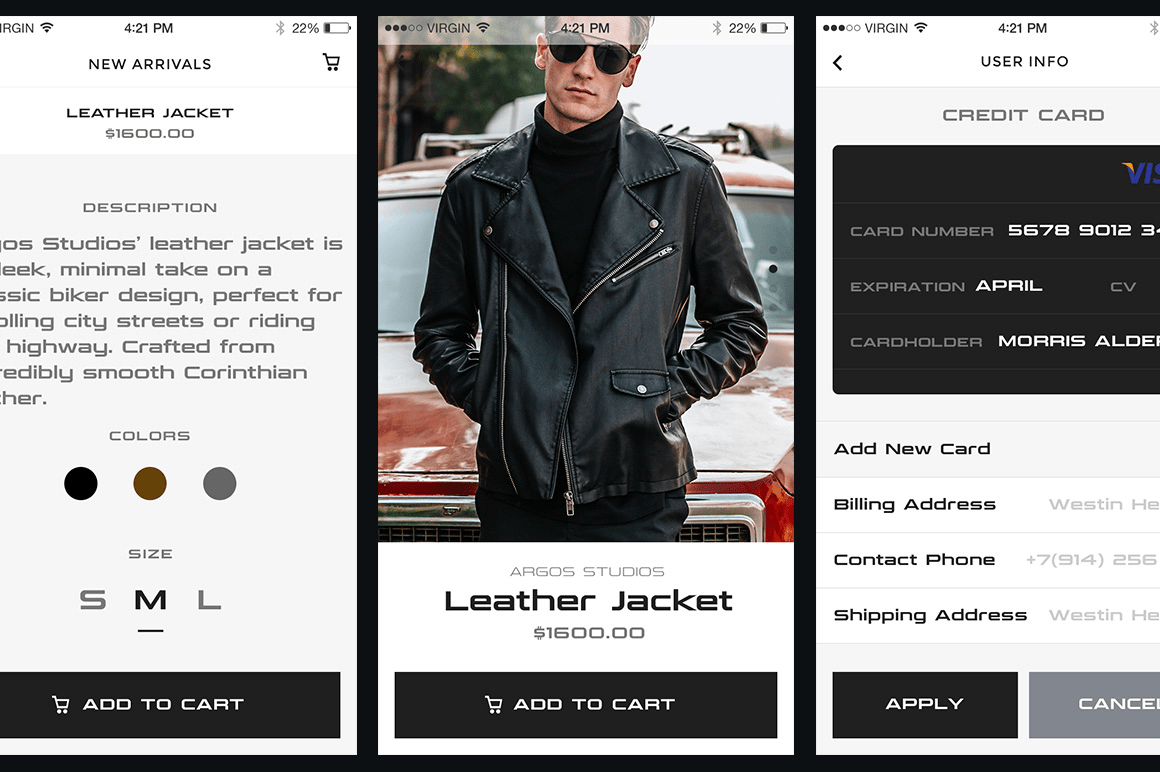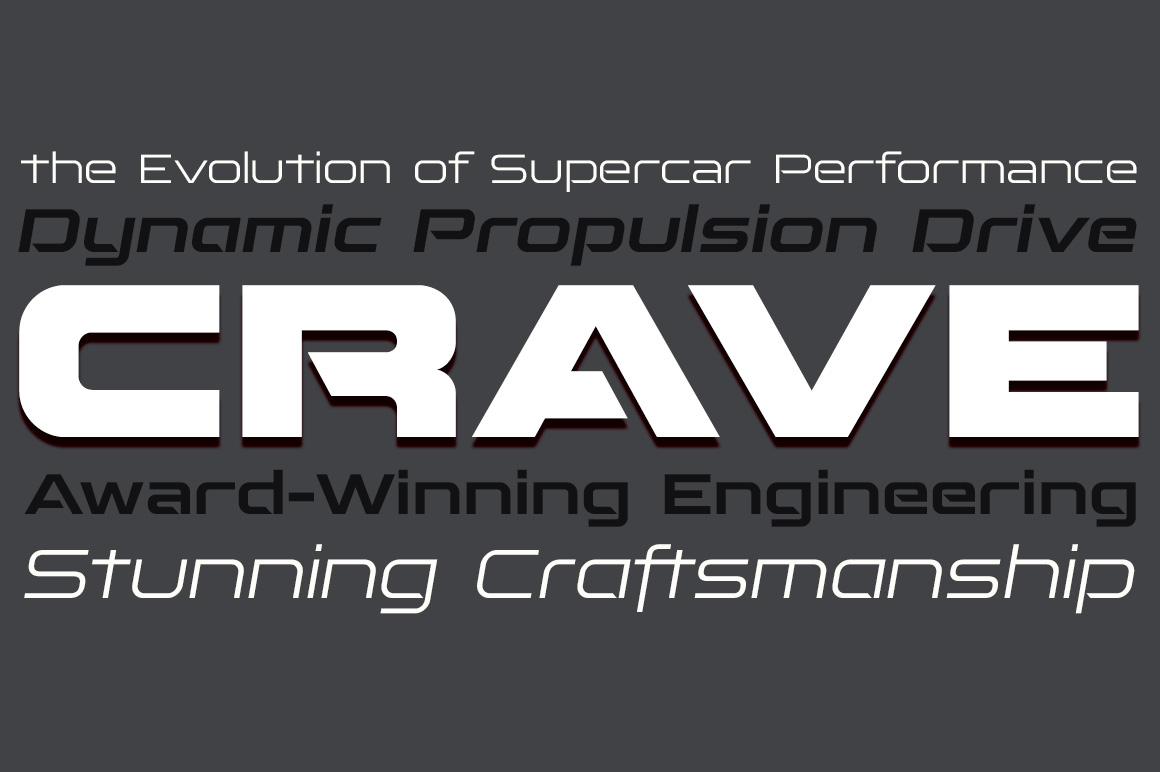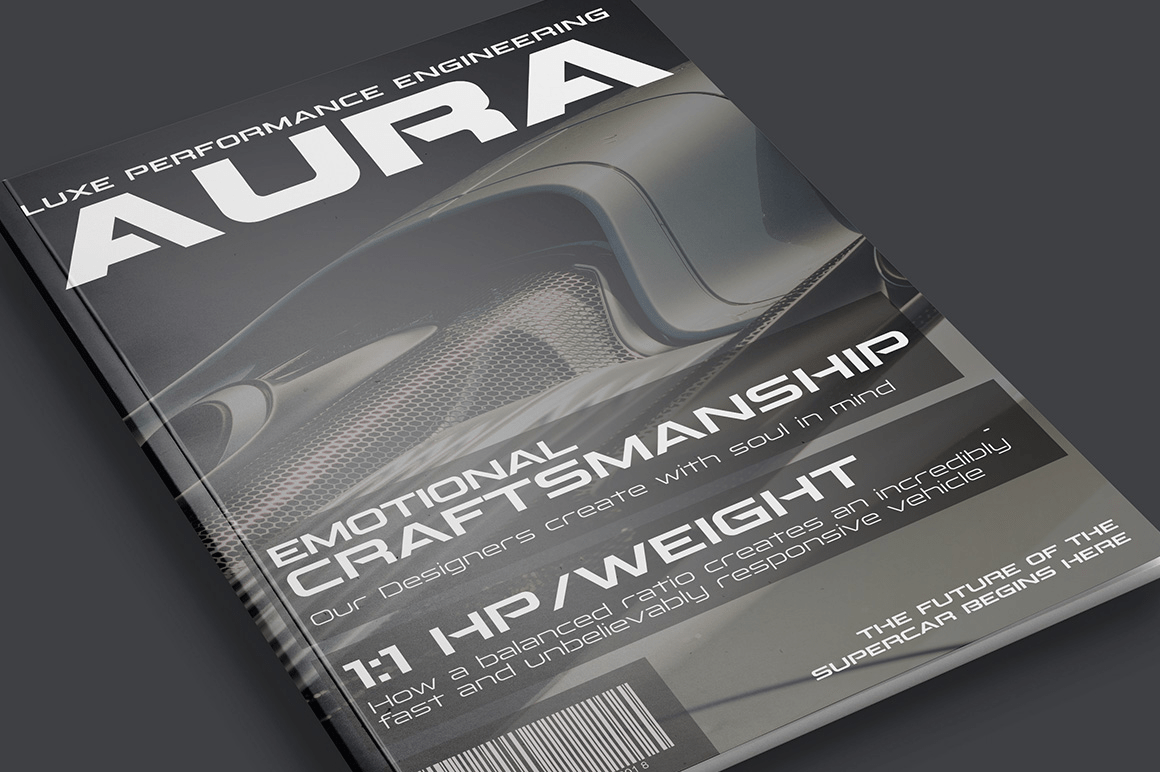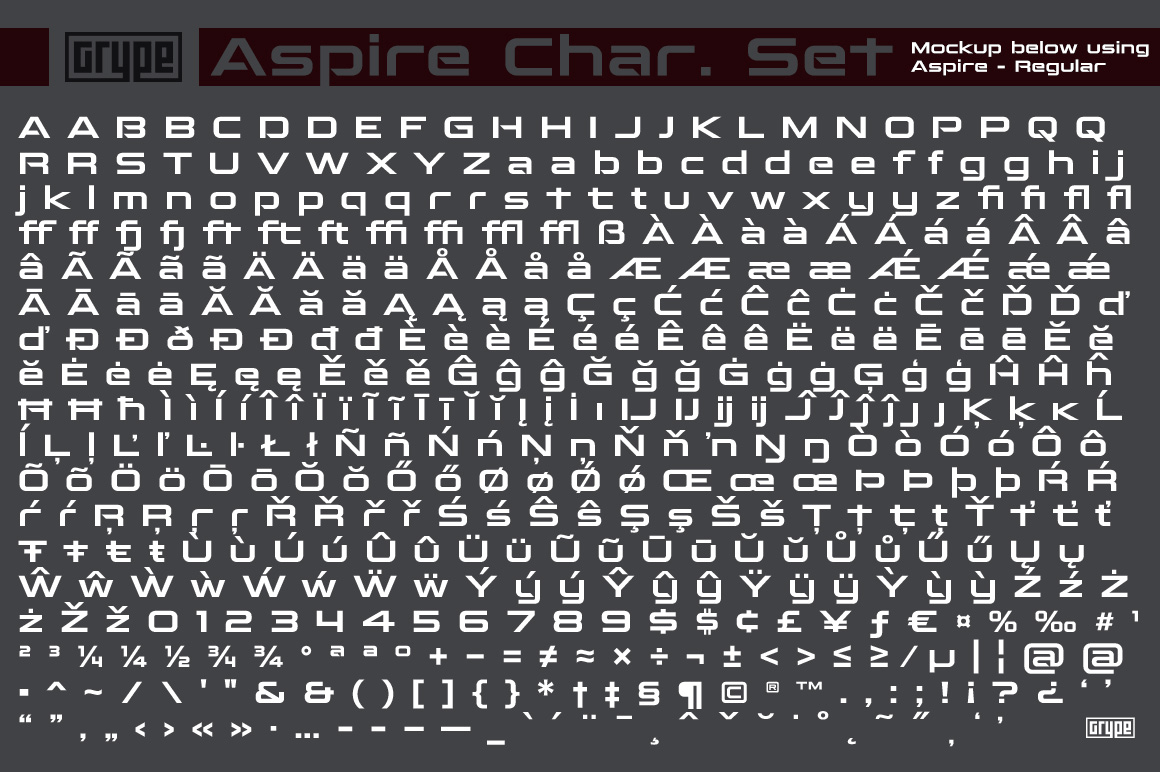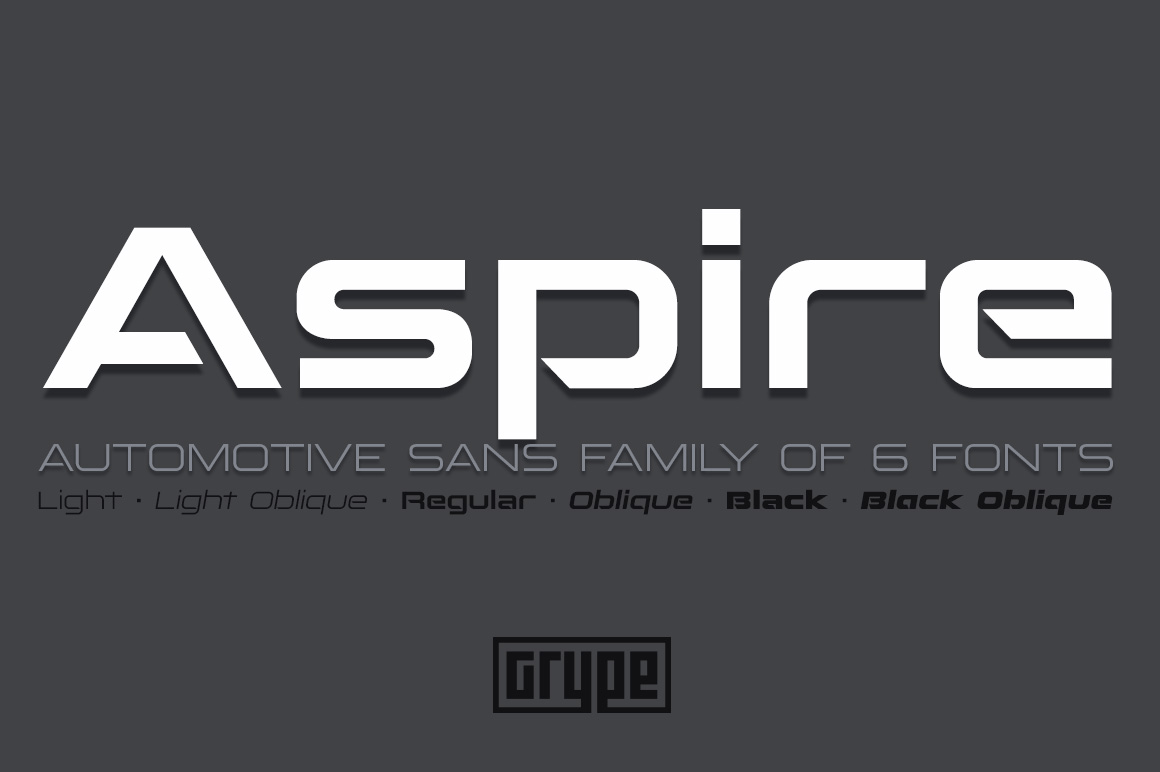
Geometric/Technical style logotypes have been developed for car chrome labels since the early 1980\’s. The styles are loaded with inspiration for great font families, but surprisingly, many of these sleek logotypes are lacking an expansive family to enhance…